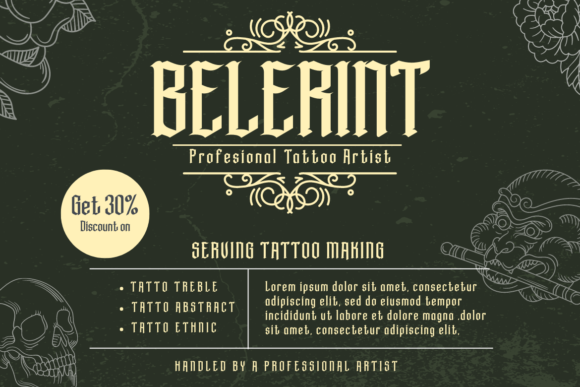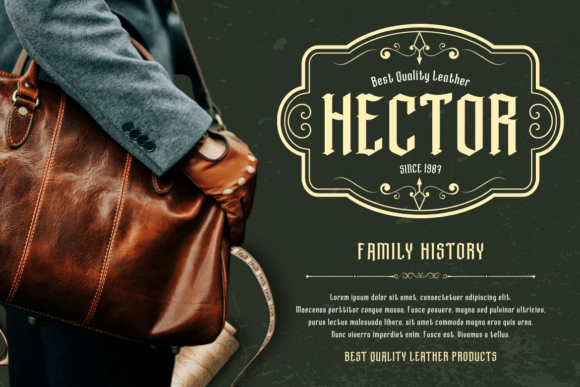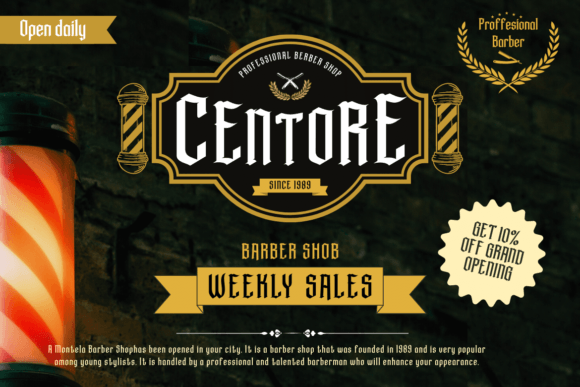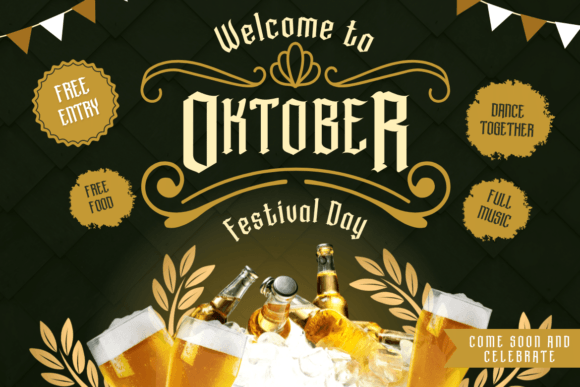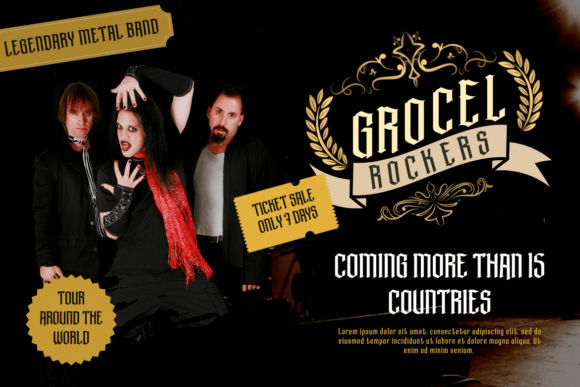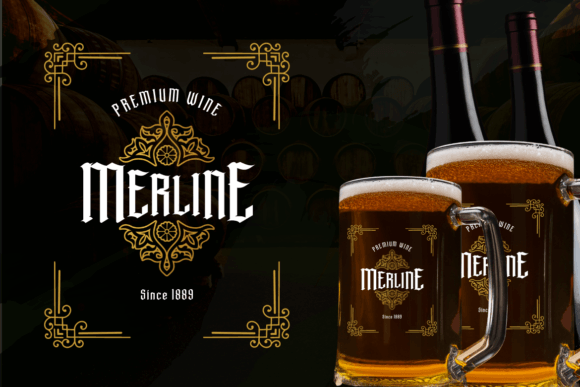
Discover the Elegance of Arhoky Font: A Gothic Blackletter Masterpiece
Have you ever been in the middle of a design project, and suddenly, you just can’t seem to find the right font? I know I have. It was a few years ago when I was working on a wedding invitation design for a client who wanted something unique and elegant. I scoured the internet, tried countless fonts, but nothing seemed to fit the bill. That was until I stumbled upon the Arhoky Font. ✨
Arhoky is a stunning gothic blackletter font that has become my go-to for adding a touch of sophistication to various creative projects. From wedding invitations to tattoos and packaging designs, this font has proven to be incredibly versatile. In this article, I’ll share my experience with Arhoky, its features, and how to make the most of it in your designs.
An Honest Review of Arhoky Font
What I Love About Arhoky ✨
- 💯 Unique and elegant design: Arhoky stands out from other gothic blackletter fonts with its distinctive and refined style.
- ✅ Highly versatile: This font can be used for a wide range of projects, from wedding invitations to tattoos and packaging designs.
- 🎨 OpenType features: Arhoky comes with a range of OpenType features, including glyphs and stylistic alternates, which allow for endless creative possibilities.
- 👍 Easy to read: Despite its ornate design, Arhoky is surprisingly easy to read, making it perfect for body text and headlines.
- ⚠️ Limited use in body text: While Arhoky is easy to read, its ornate design may not be suitable for long blocks of body text.
- 🤔 Requires careful kerning: As with any font, kerning is crucial to ensure that Arhoky looks its best. Be prepared to adjust the kerning to achieve optimal results.
The Backstory of Arhoky Font
Arhoky was designed by a team of typographers who wanted to create a unique and elegant gothic blackletter font. Inspired by traditional European calligraphy, Arhoky combines classic design elements with modern typography features. The result is a font that’s both refined and versatile.
| Font Name | Arhoky Font |
| Author | Productype |
Q: Is Arhoky easy to read?
A: Yes, Arhoky is surprisingly easy to read, making it perfect for body text and headlines.